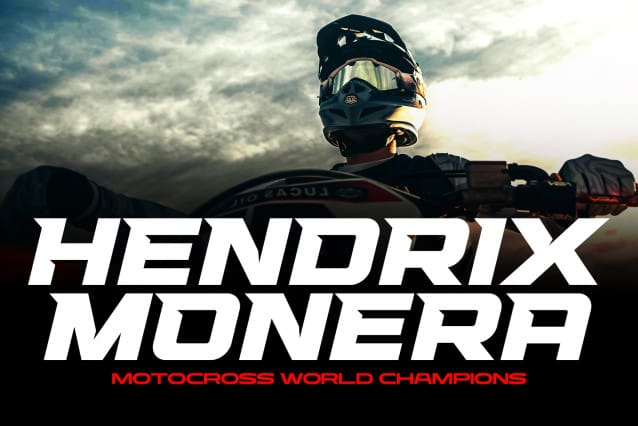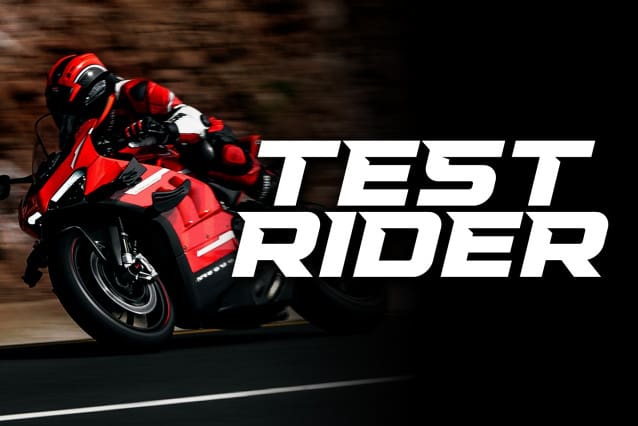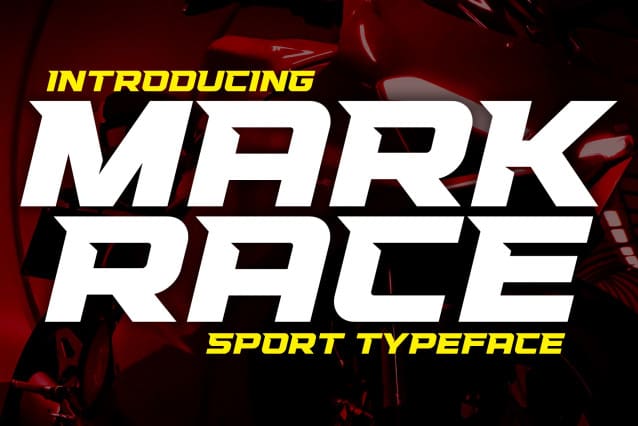
Racing Mark Race Font
Racing Mark Race Font is a font with a racing theme. The rounded, slanted shapes and precise cut shapes make this font stand out clearly and make it look fast and very sporty.
Racing Mark Race is perfect for racing product logos, racing game covers, sporting events, automotive posters, automotive magazine covers, branding, product designs, labels and other creative projects.